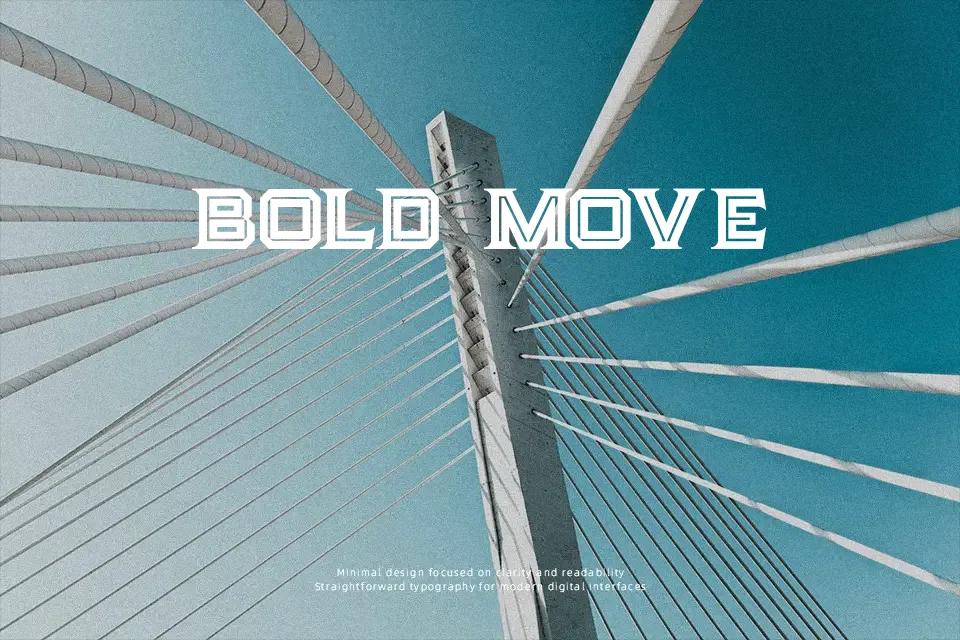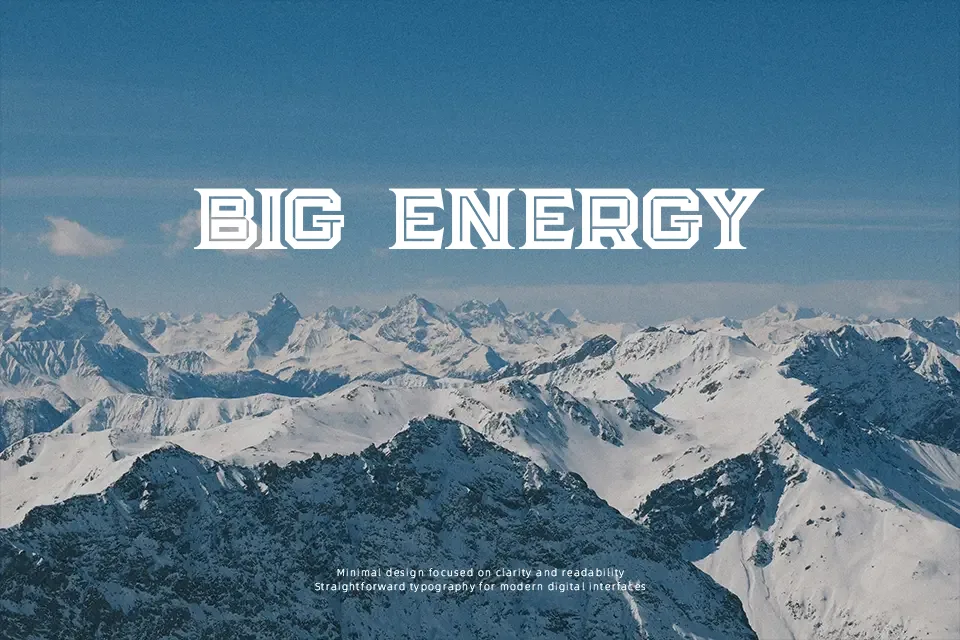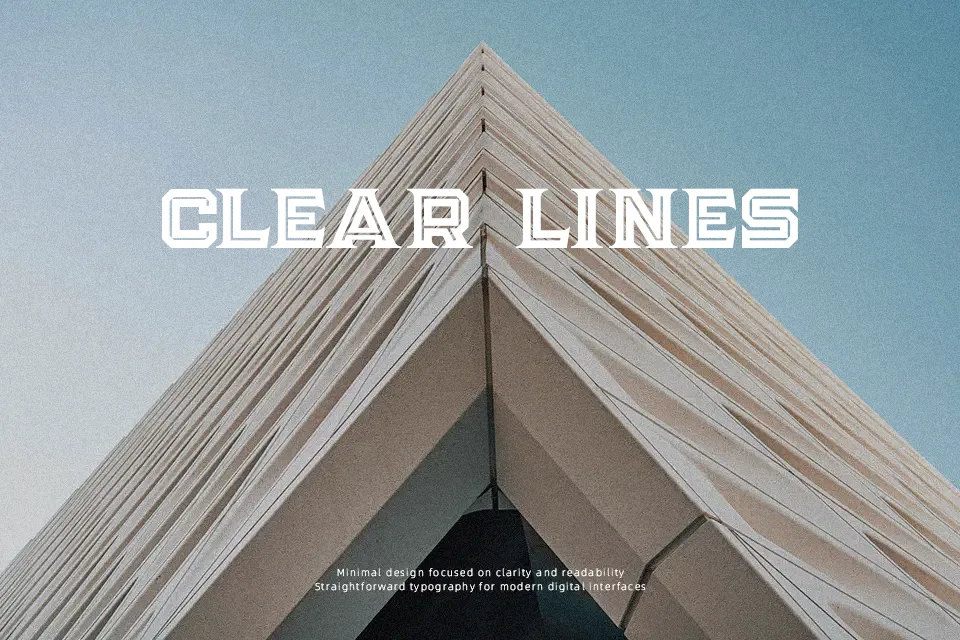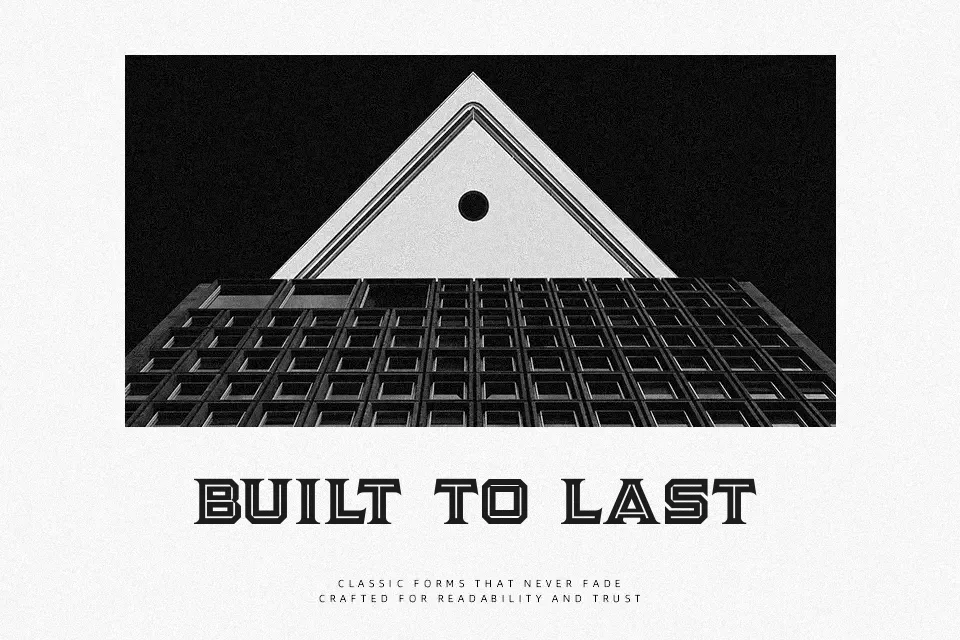
Strife Font
Built around sturdy geometric foundations and pronounced bracketed serifs, Strife Font establishes immediate presence through heavy stroke weights and high visual impact. The uppercase letterforms feature wide, structured proportions paired with controlled letter spacing, ensuring individual characters remain distinct when arranged in short titles. While the heavy stem thickness grants substantial authority to large branding lockups, signage, and merchandise prints, this density noticeably impairs reading flow across extended text blocks. At smaller point sizes, the narrow counters and compact internal spaces tend to fill in, making the typeface far less effective for body paragraphs or detailed captions.
Best For: vintage poster headlines,retro product packaging,apparel graphics,bold logo marks
Not Ideal For: continuous body copy,small mobile interface labels,dense editorial layouts,legal documentation